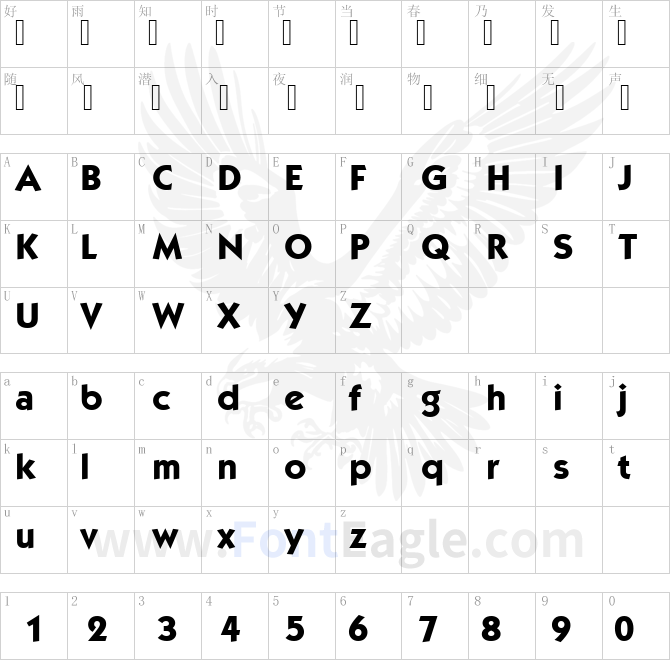
KabelItcTEE-Bold is a great font, widely used in graphic design, single-page menu design, poster design and other fields, and is deeply loved by designers.KabelItcTEE-Bold download.